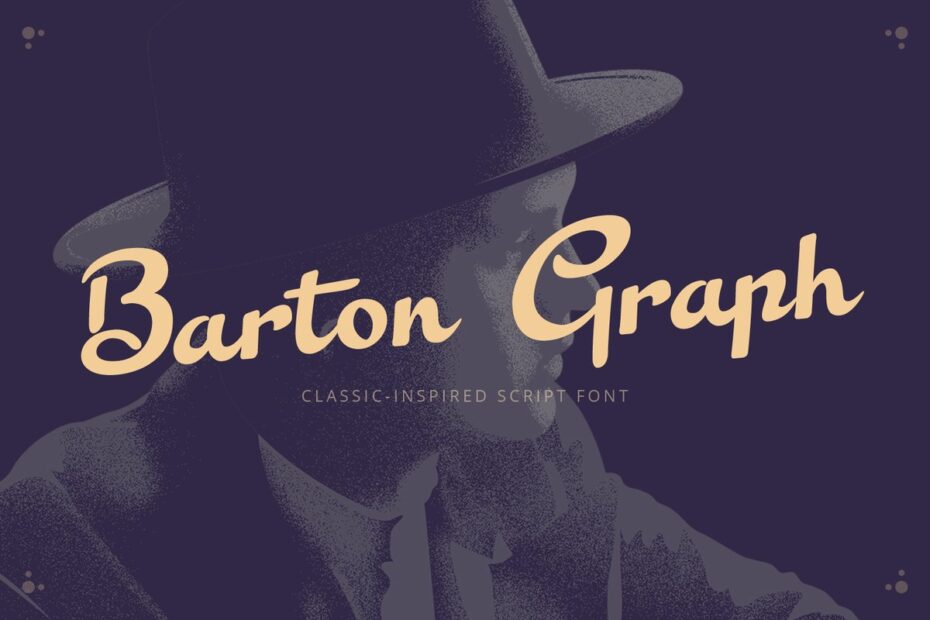
Unleashing the Power of Handwritten Charm: Introducing the Barton Graph Font
Have you ever found yourself in the midst of a creative project, searching for that perfect font that captures the essence of human touch? For designers, the quest for the ideal script font is a constant pursuit. It’s that moment when you stumble upon the Barton Graph Font, and suddenly, your designs come alive with a sense of warmth and personality.
The Barton Graph Font is a beautiful script typeface inspired by classic handwriting and calligraphy. Its versatility makes it perfect for a wide range of applications, from logos and branding to book covers, album covers, and business cards. This stunning font is a valuable addition to any designer’s toolkit, offering a unique opportunity to add a personal touch to their work.
Barton Graph Font Key Features
- Unique Characteristic: Barton Graph Font features a unique, hand-drawn aesthetic that sets it apart from other fonts.
Barton Graph Font Review
Overall, I’m impressed with the Barton Graph Font, but it’s not without its quirks. Here’s what I like:
- ✨ Beautiful, hand-drawn aesthetic that adds a touch of warmth to digital designs.
- ✨ Wide range of weights, from Light to Black, offering flexibility for various design applications.
- ✨ Excellent legibility, making it suitable for both body text and headings.
However, I’ve encountered a few limitations:
- ⚠️ Limited language support, which may be a concern for designers working on international projects.
- ⚠️ Some characters, like the ‘k’ and ‘q’, can be quite stylized and might not be immediately recognizable to readers.
- ⚠️ The font may not be suitable for extremely small text sizes due to its complex stroke widths.
Despite these limitations, I think the Barton Graph Font is a great addition to any designer’s toolkit. Its unique aesthetic and versatility make it an excellent choice for creative projects. With a bit of caution regarding its limitations, I’d recommend giving it a try.
To get the most out of the Barton Graph Font, try using it in conjunction with other hand-drawn elements, such as illustrations or graphics.
The Barton Graph Font is perfect for:
- Creating unique and personalized invitations.
- Designing educational materials, such as worksheets or presentations.
- Adding a touch of whimsy to business materials, such as brochures or reports.
Alternatives to Barton Graph Font
Open Sans is a clean, modern sans-serif font that is highly legible and versatile. It’s suitable for use in body text, headings, and titles. Open Sans is a great alternative to Barton Graph Font for designers who want a more contemporary look and feel.
Comparison: Open Sans has a more neutral tone and a wider range of weights than Barton Graph Font, making it a more versatile choice for designers.
Lato is a sans-serif font with a friendly, approachable feel. It’s perfect for use in body text, headings, and titles, and is particularly well-suited for web design. Lato is a great alternative to Barton Graph Font for designers who want a more relaxed, humanist feel.
Comparison: Lato has a more rounded, humanist feel than Barton Graph Font, making it a good choice for designers who want a more approachable, friendly tone.
What is the recommended usage for the Barton Graph Font?
The Barton Graph Font is designed for use in data visualization, charts, and graphs, but it can also be used for other applications where a clear and precise font is required. Recommended usage includes titles, labels, and axis labels in graphs and charts, as well as in presentations and reports where data visualization is key.